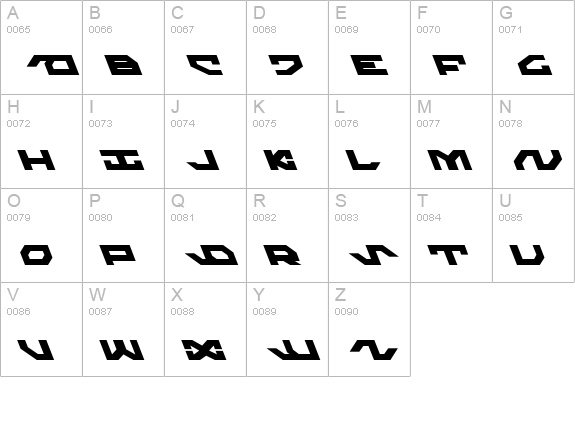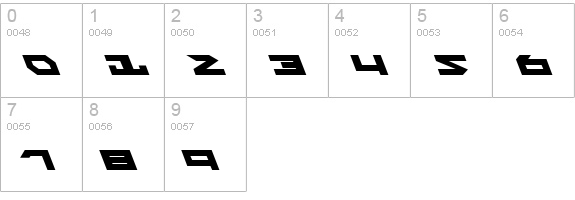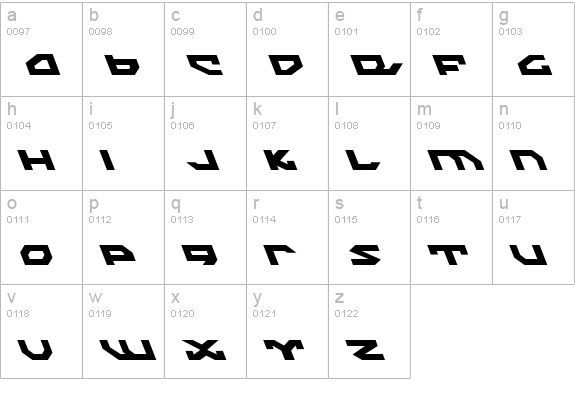
Nightrunner Leftalic font exudes an air of sophistication and mystery with its elegant slanted design. Perfect for adding a touch of drama to your designs, this stylish font commands attention and leaves a lasting impression. The sleek curves and sharp angles of Nightrunner Leftalic create a sense of movement and energy, making it the ideal choice for projects that require a dynamic and modern touch. Best of all, Nightrunner Leftalic is available for free download at FontsMarket.com. Whether you're working on a poster, logo, or website design, this versatile font will elevate your project to new heights. Embrace the bold and captivating style of Nightrunner Leftalic and make a statement with your typography.